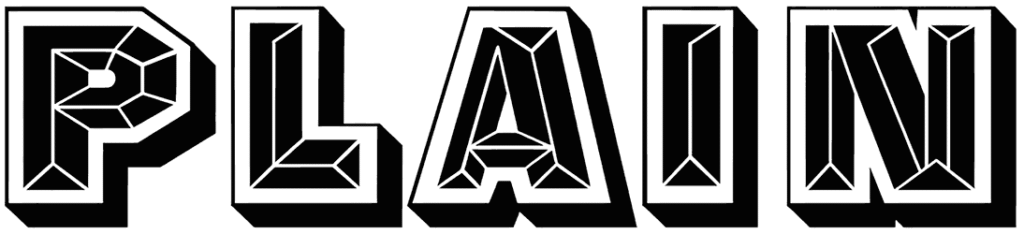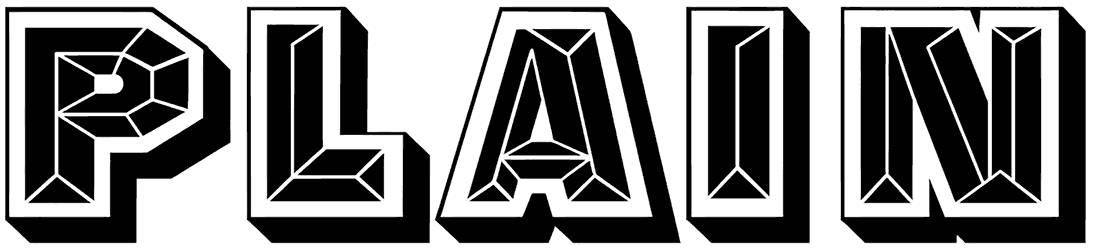
Plain Font
Sometimes using a diamond font like Plain in designing graphic content such as posters, web pages, headlines, flyers, or brochures would be a brilliant idea and insanely increase the efficiency of your work. Despite the…
Sometimes using a diamond font like Plain in designing graphic content such as posters, web pages, headlines, flyers, or brochures would be a brilliant idea and insanely increase the efficiency of your work. Despite the lack of lowercase letters, numbers, and punctuation, due to its magical look, it can add a sense of modernity, drama, art, or innovation to your artwork.